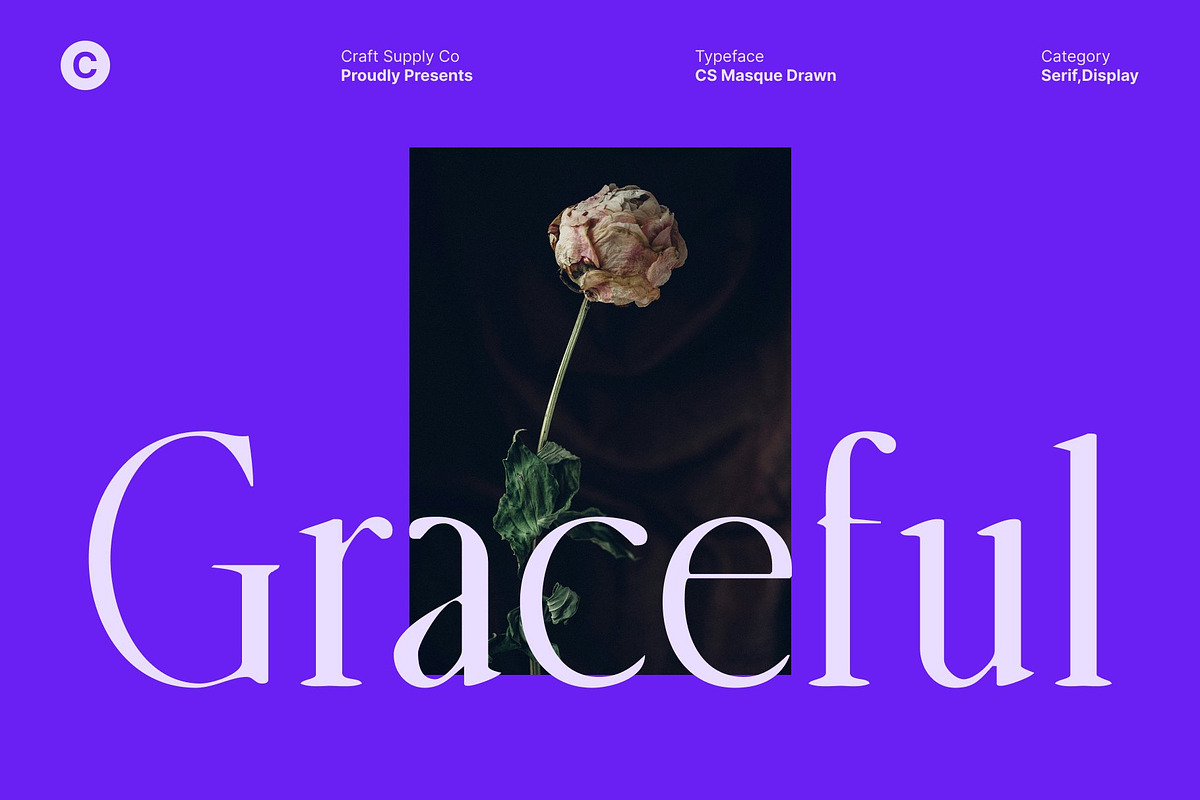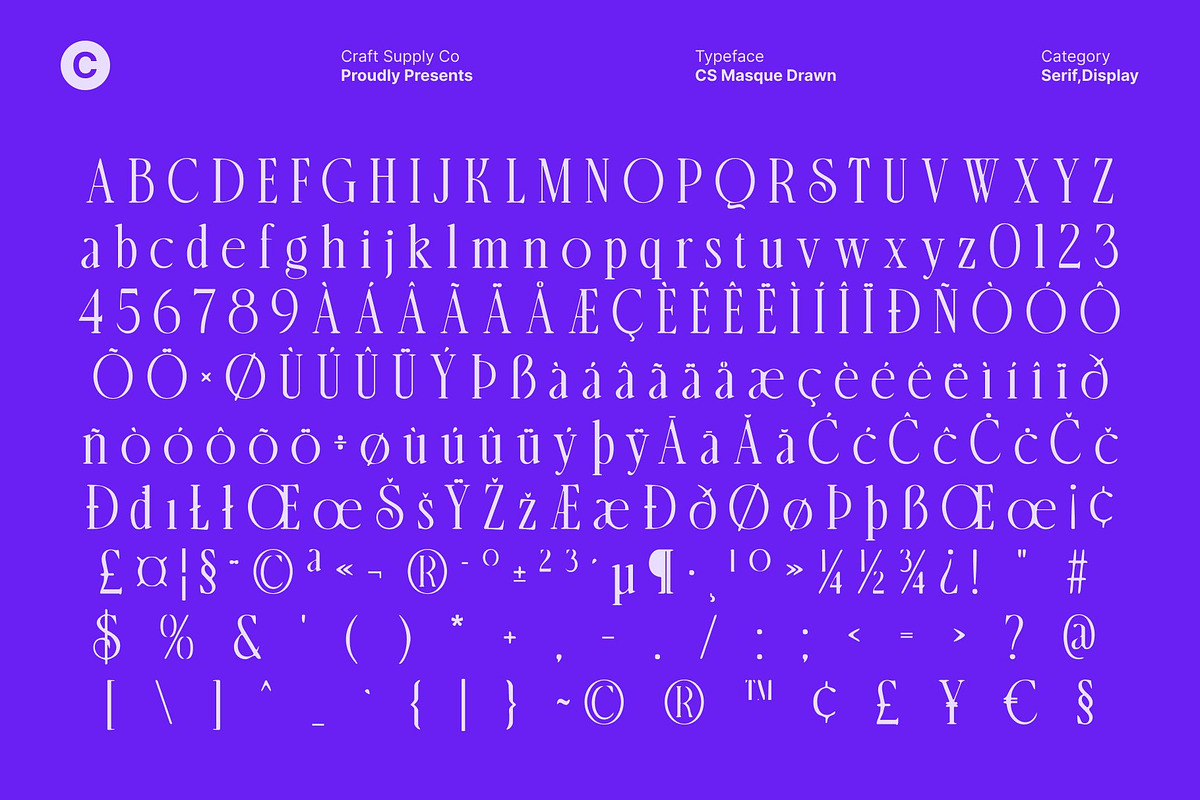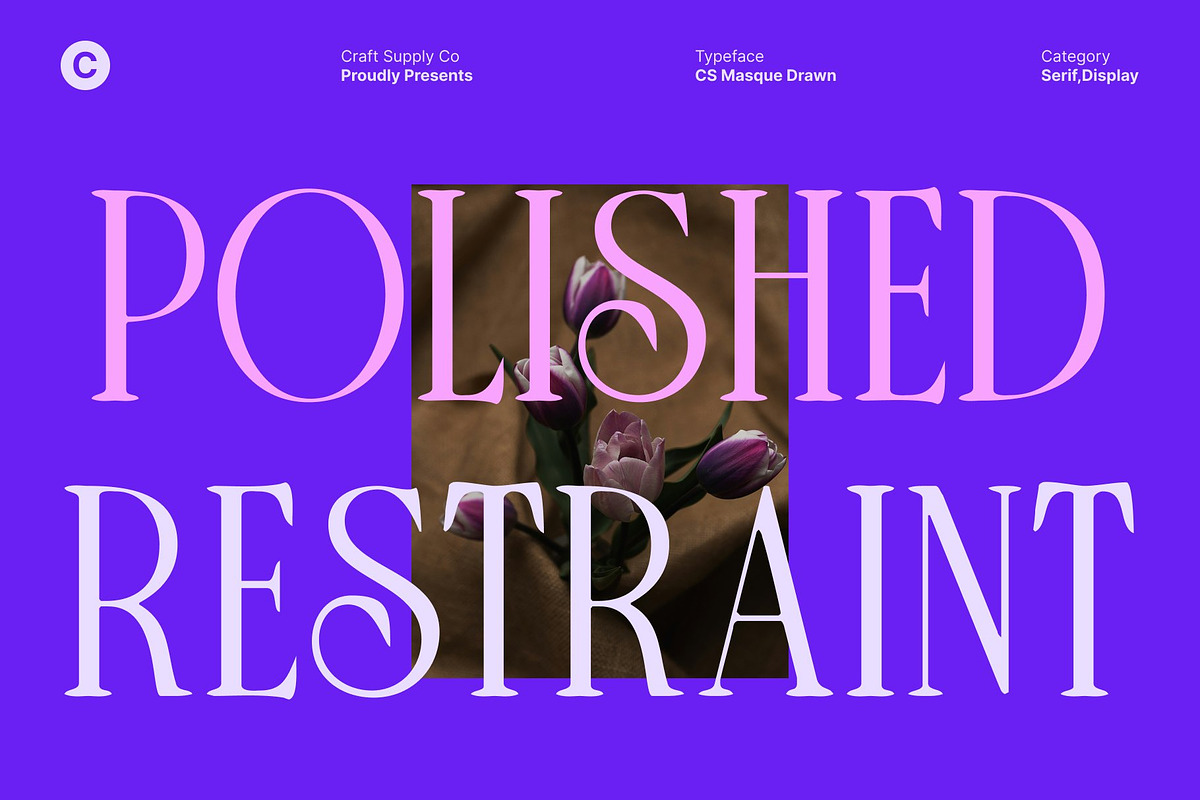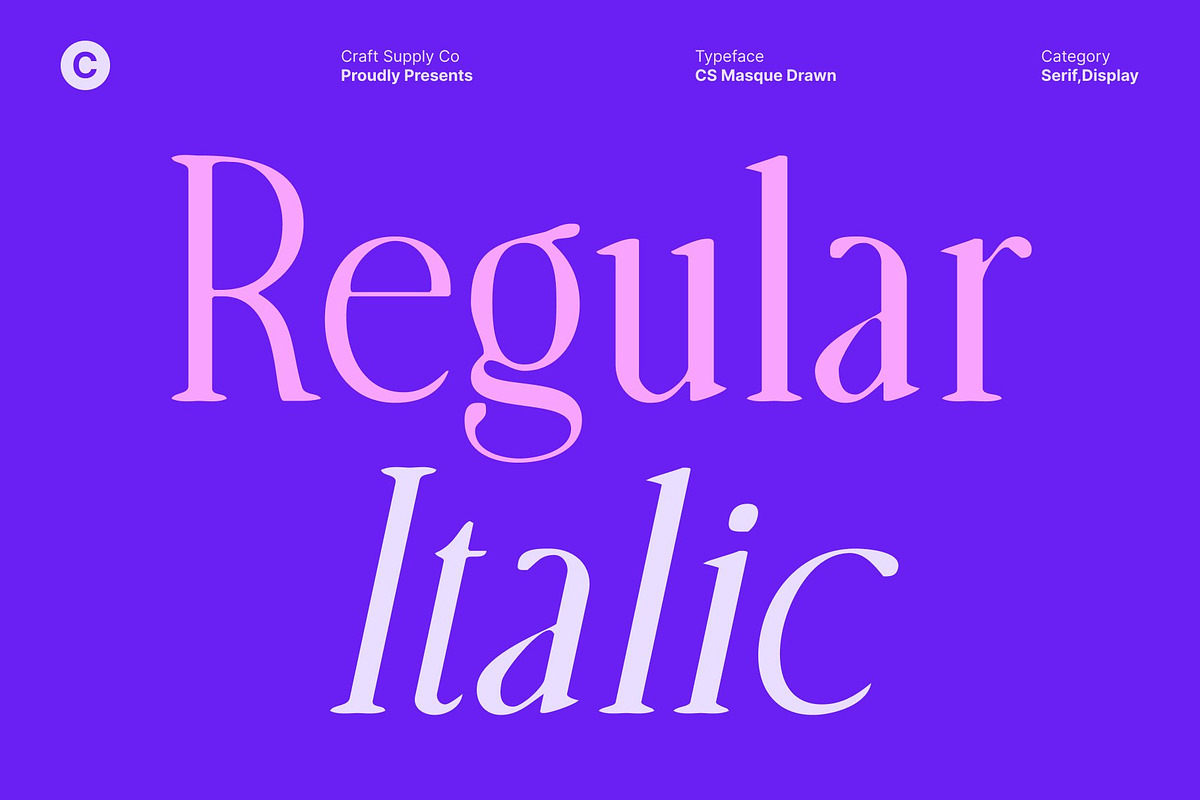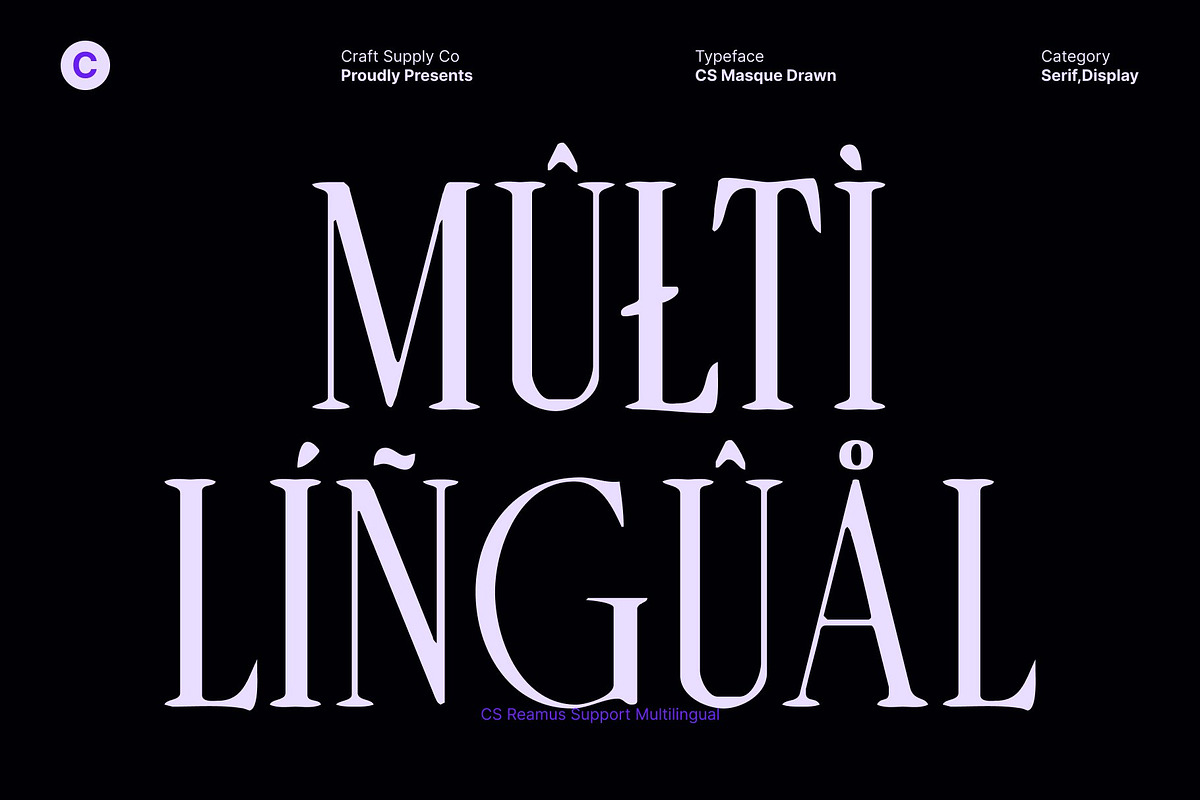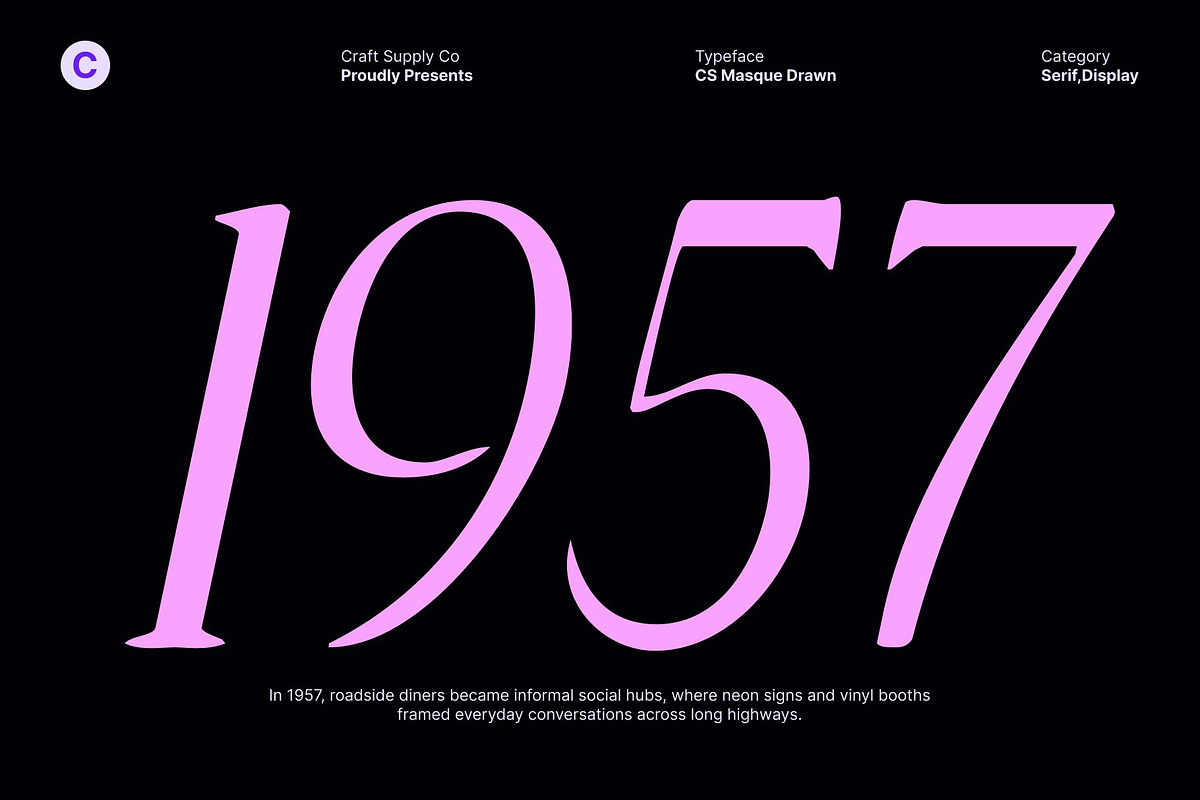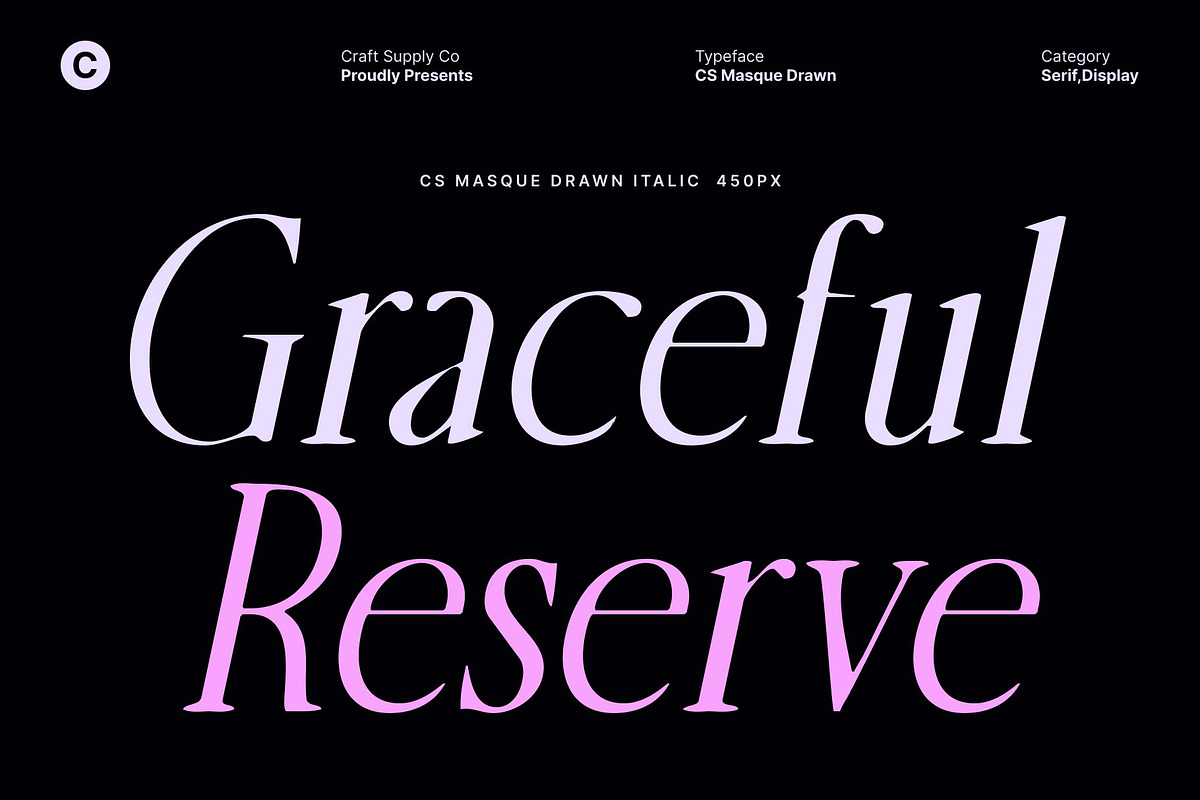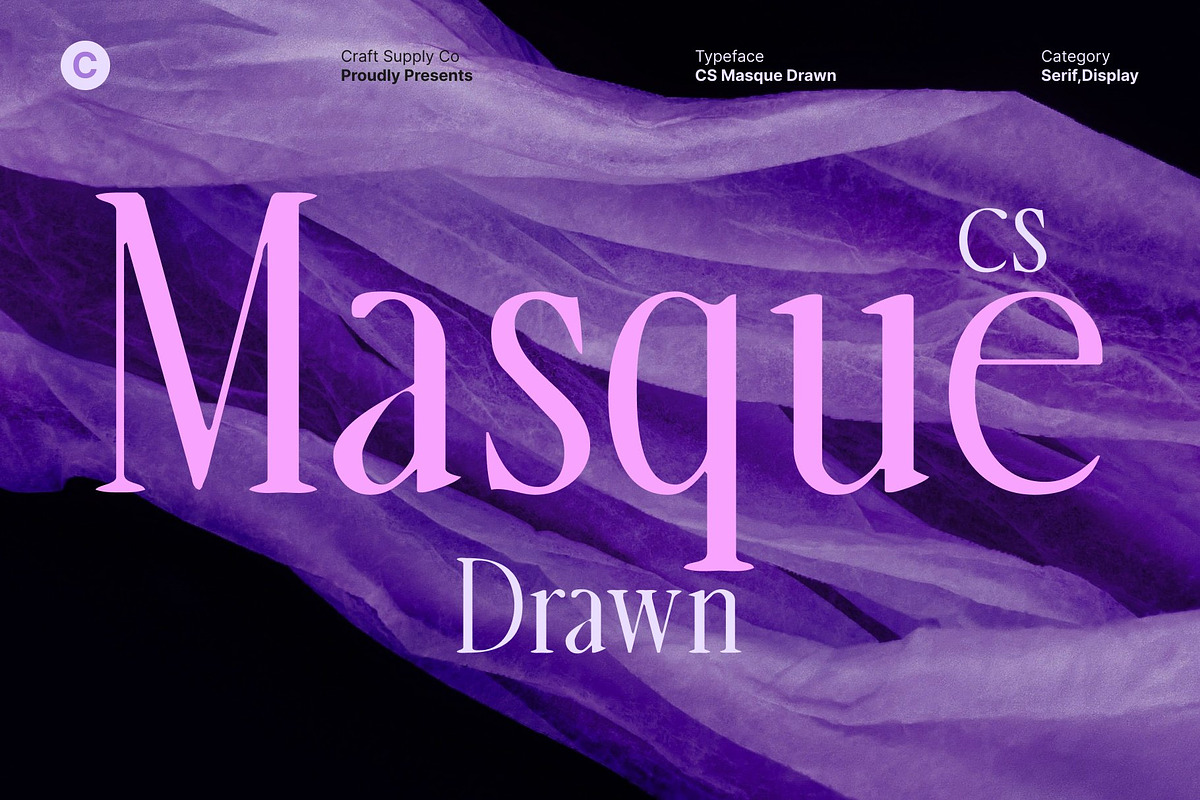
CS Masque Drawn
CS Masque Drawn – Condensed Serif Font with Elegant Precision
Condensed Serif Font with Drawn Refinement This is a modern condensed serif font that merges refined minimalism with classic charm, enhanced by a subtle hand-drawn texture. Its slender construction and expressive details create a sophisticated visual language that feels graceful, elevated, and distinctly human. The drawn effect softens the clean structure, adding warmth and character while preserving a polished and high-end appearance.
Tall and Narrow Forms for Sleek Sophistication Designed with tall, narrow letterforms, brings a strong sense of vertical elegance to any layout. Its condensed width allows designers to work efficiently in limited space without losing clarity or refinement. The slim proportions create a sleek rhythm that feels stylish and composed, making the font ideal for magazine spreads, editorial headlines, luxury labels, and refined typographic systems.
Classic Serif Charm with Contemporary Minimalism This font balances timeless serif details with a modern minimalist approach. The refined serifs and controlled contrast evoke tradition and trust, while the clean structure and drawn texture introduce a contemporary sensibility. This blend results in a font that feels both classic and current perfect for designs that aim to communicate sophistication without excess ornamentation.
Versatile for Editorial, Branding, and Luxury Design Highly adaptable across print and digital media, excels in fashion editorials, upscale branding, modern headlines, packaging, and identity systems. Its elegant proportions and expressive texture deliver a poised, professional tone that elevates visual storytelling.